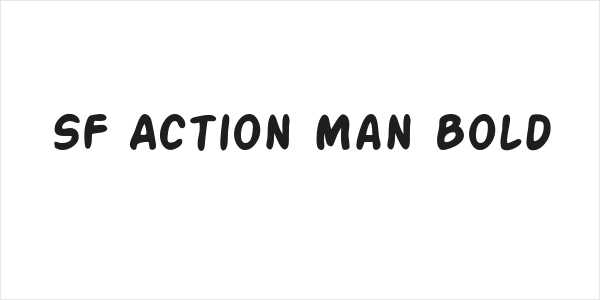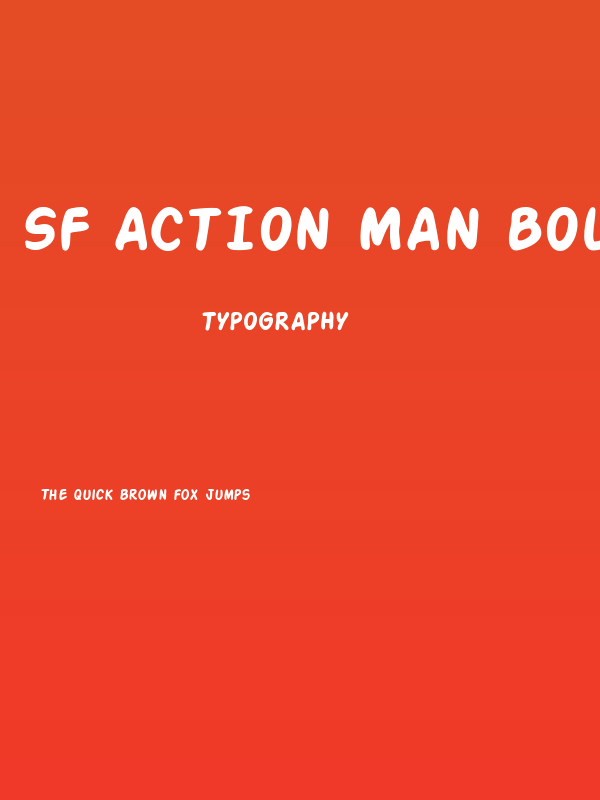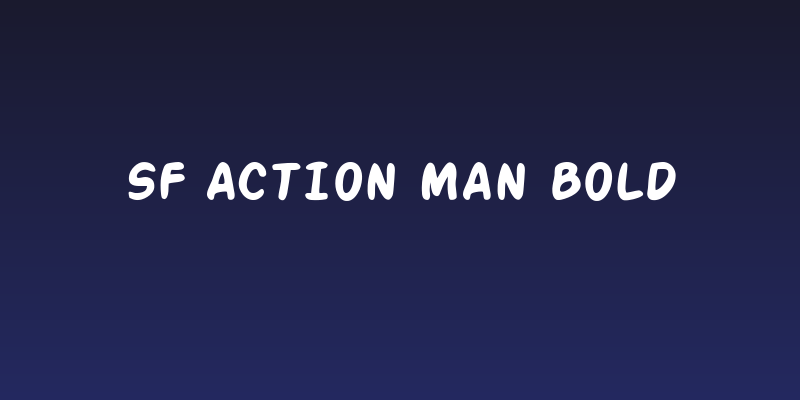
SF Action Man Bold Font
SF Action Man Bold Description
This font features bold, rounded characters with a playful and dynamic appearance. The strokes are thick and consistent, giving it a strong presence. The letters have a slightly informal, handwritten style, yet maintain clarity and readability. The curves are smooth, and the overall look is energetic and lively, making it suitable for attention-grabbing designs. The numbers and special characters follow the same bold and rounded style, ensuring uniformity across all elements.
| Proposed Projects | Ideal for comic books, children's books, playful branding, posters, and merchandise designs. |